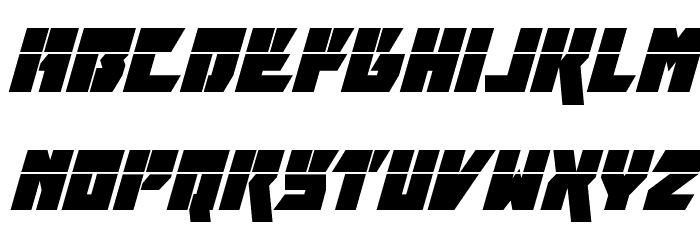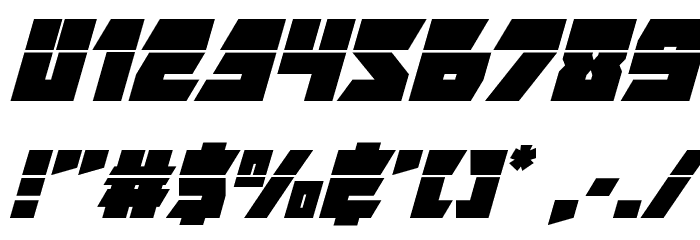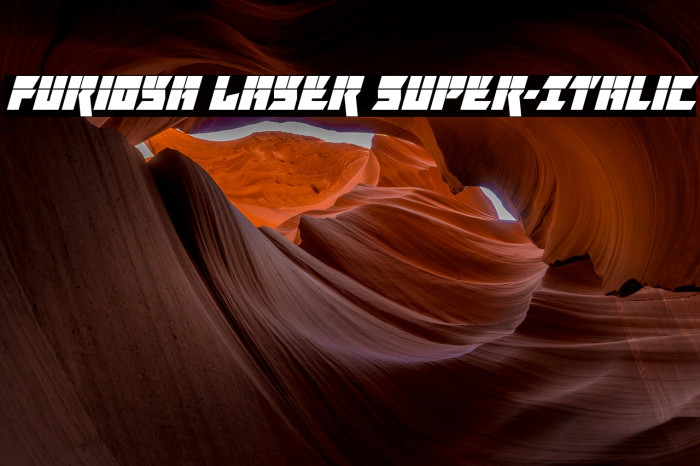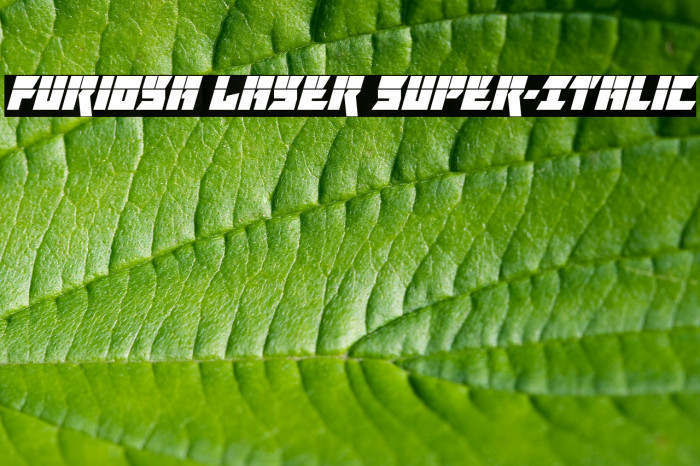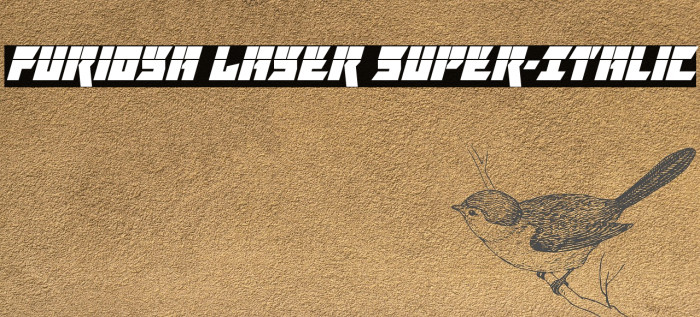
Furiosa Laser Super-Italic Font
This font features a bold, futuristic design with sharp, angular lines and a distinct italic slant. The characters are heavily stylized, giving them a dynamic and aggressive appearance. The uppercase and lowercase letters maintain a consistent geometric structure, while the numbers and special characters follow the same angular theme. The overall look is reminiscent of a high-tech or sci-fi aesthetic, making it suitable for projects that require a modern and edgy feel. The boldness of the strokes ensures high visibility and impact, making it ideal for attention-grabbing designs.
A bold, angular, and futuristic italic font with a sci-fi aesthetic.
- Proposed Projects: Ideal for sci-fi movie posters, video game titles, tech branding, and futuristic event flyers.
- Character Spacing: Tight
- Overall Style: Futuristic